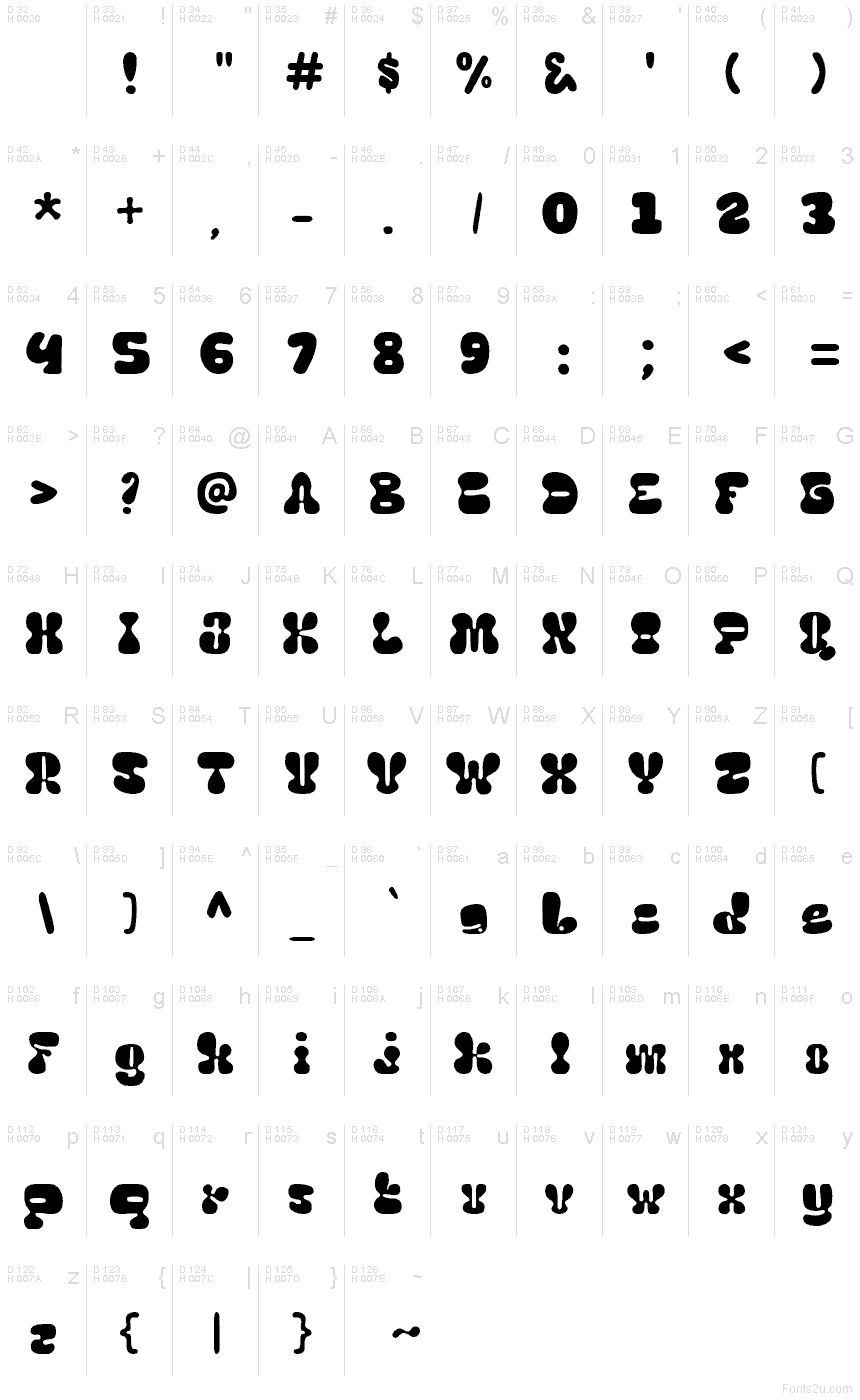
Menika Regular
Menika font by Jetsmax Studio is an exceptional groovy display font with an expressive and retro-inspired style. Menika features exaggerated forms and rounded edges with light curves, a unique direction for an eye-catching piece where you want to capture the reader’s attention. The typeface is bold and cohesive enough to serve professional designs.